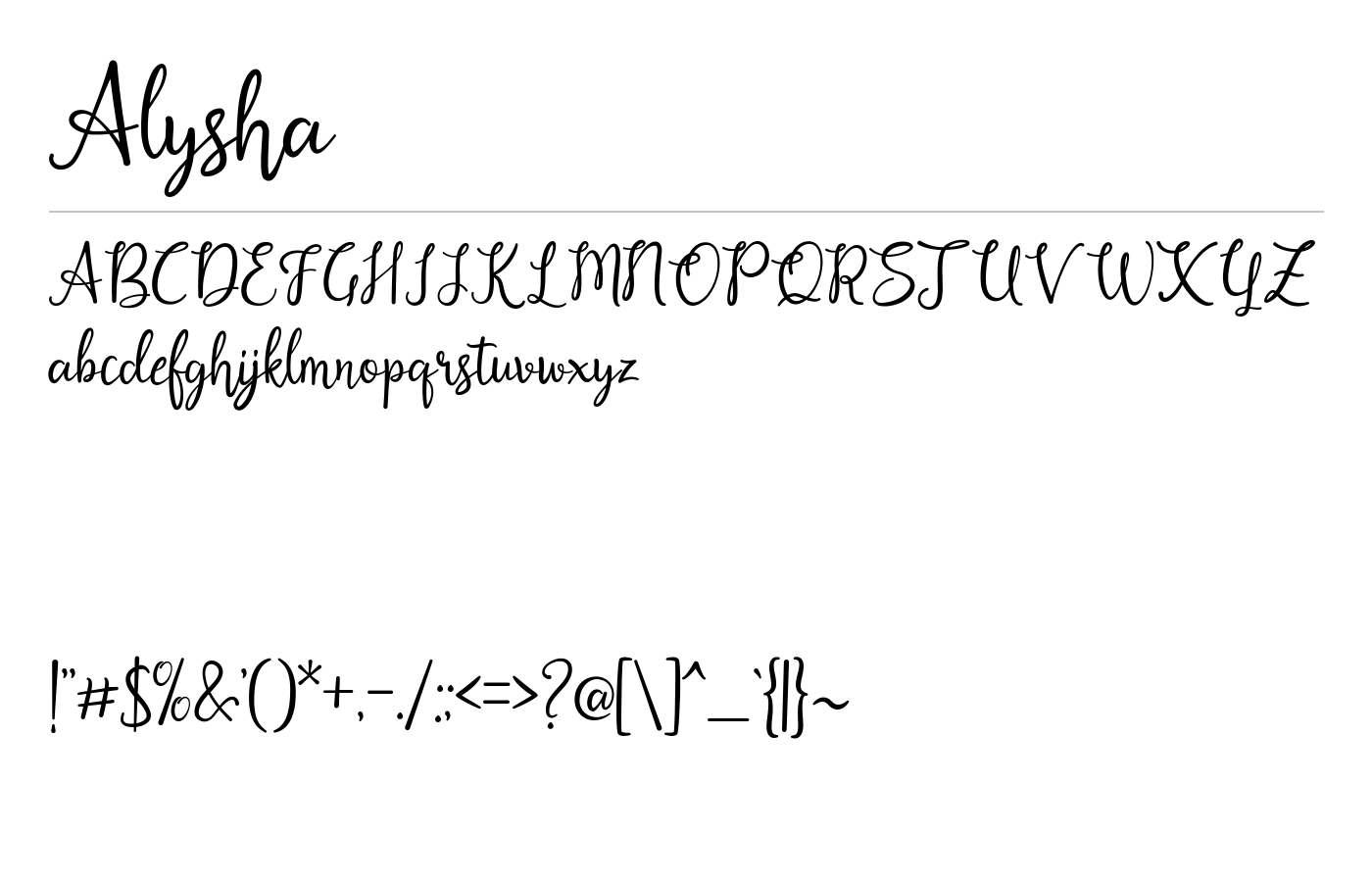
Alysha is a delicate script font with elegant, flowing handwritten letterforms that convey a warm and personal feel. Featuring slender strokes, smooth curves, and distinctive swashes on uppercase letters, it brings a charming, feminine touch ideal for invitations, branding, and creative projects that require a graceful yet approachable style. This font works beautifully for headlines, logos, and decorative text where a stylish and friendly impression is desired.
Alysha Font
About Alysha Font
| Font family | Alysha Font |
| Designer | Vilogsign 2019 |